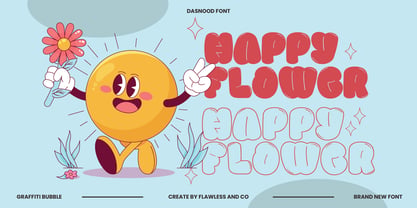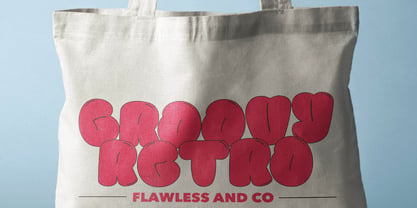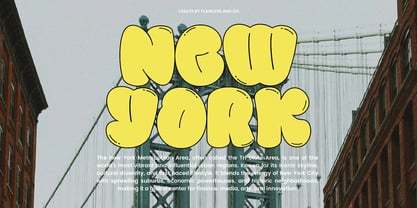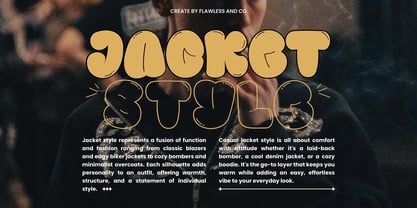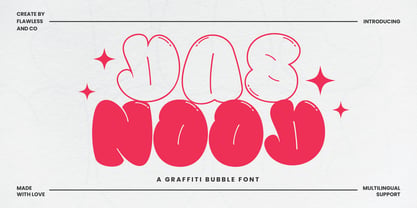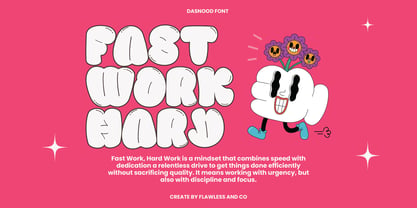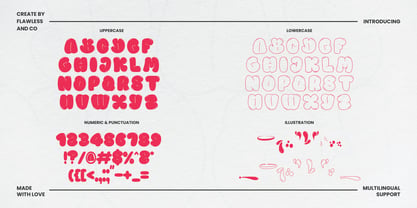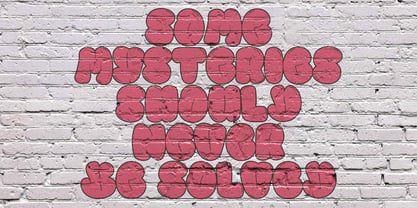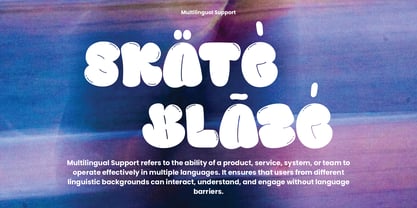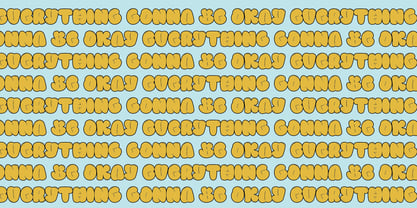
Dasnood
por Flawlessandco
La familia tipográfica Dasnood fue diseñada por Achmad Yani y publicada por Flawlessandco. Dasnood contiene 1 estilos. Más información sobre esta familia
DASNOOD a graffiti-inspired bubble font bursting with energy and personality. With its chunky shapes and cartoonish attitude, DASNOOD is made to stand out—perfect for projects that need a bold, expressive, and youthful vibe. From street-style posters to fun branding, merchandise, kids’ projects, or social media content, DASNOOD brings a pop of urban fun wherever it goes. It's loud, lovable, and made to move your message with a smile.
Features :
Multilingual, Uppercase alphabet A-Z, Lowercase alphabet a-z, Numbers 0-9, Some punctuation, Alternates & Ligatures
Diseñadores: Achmad Yani
Fundición: Flawlessandco